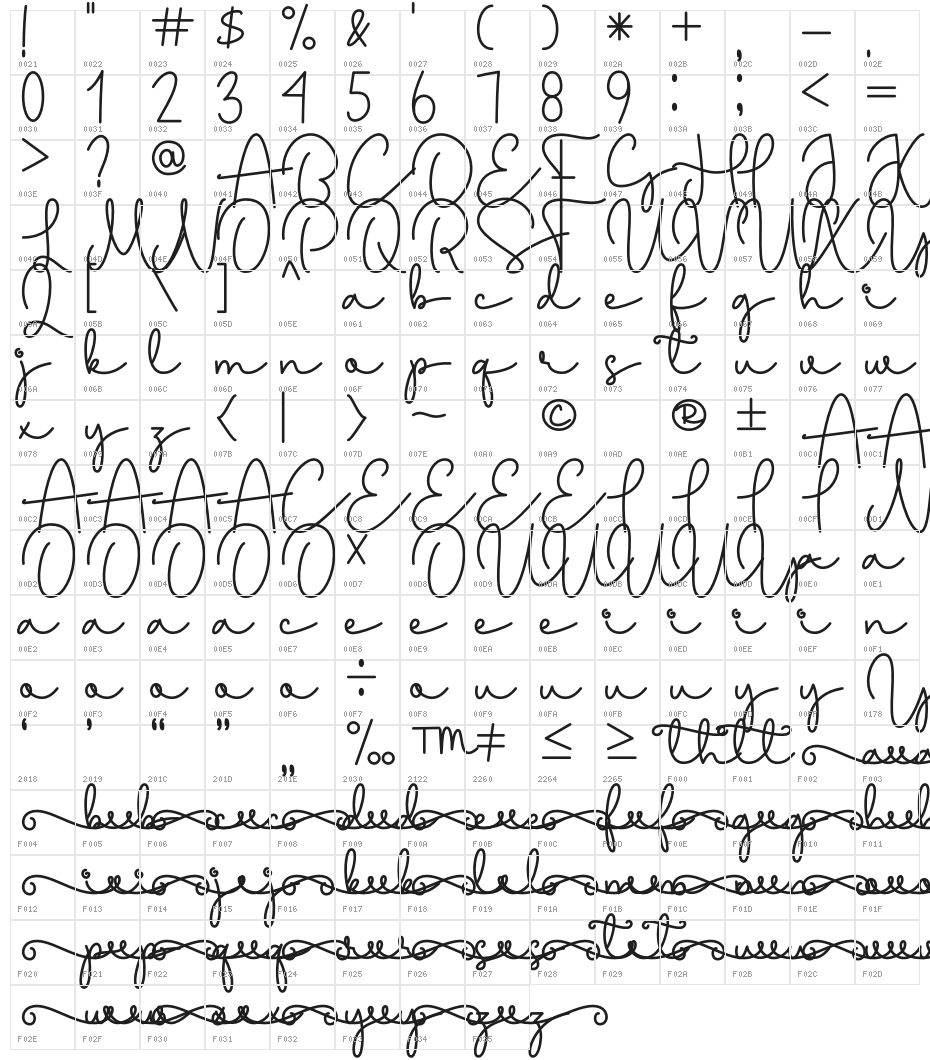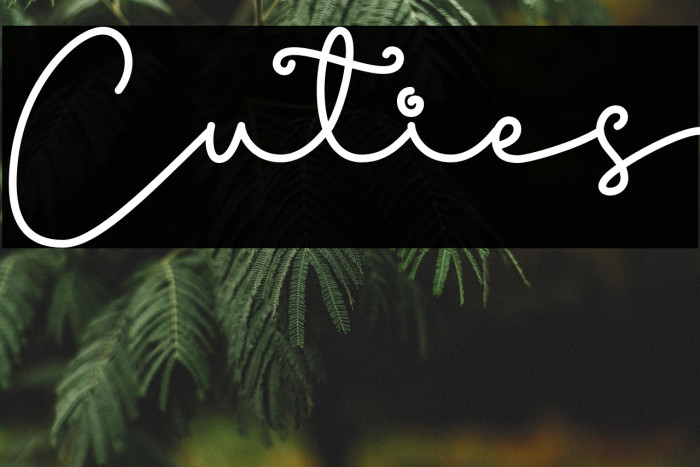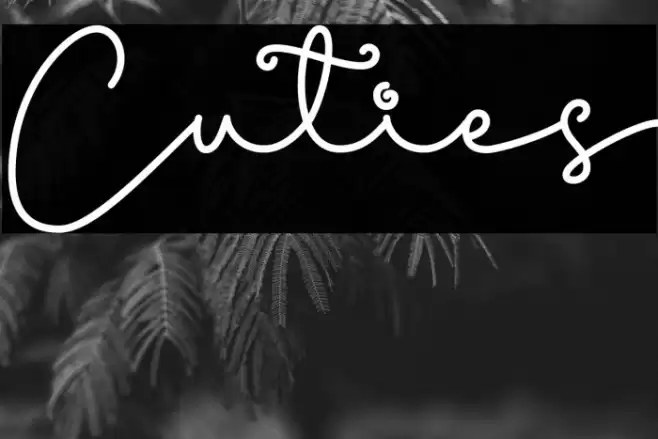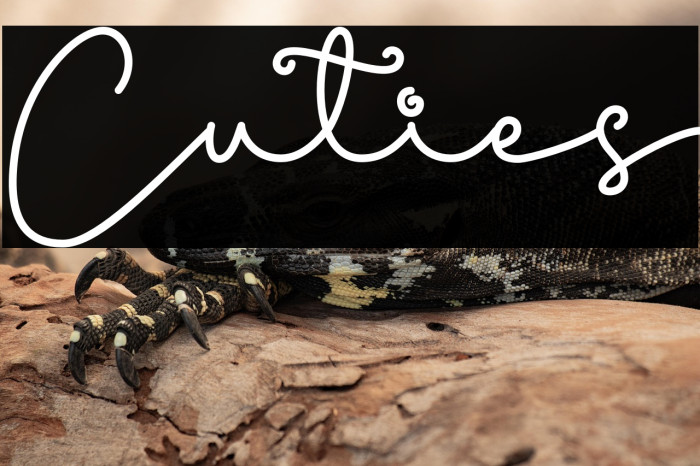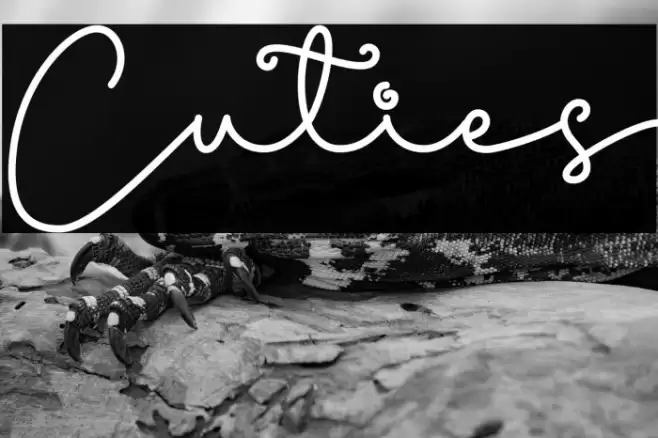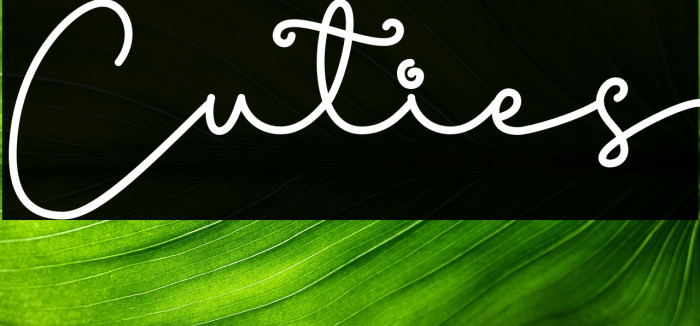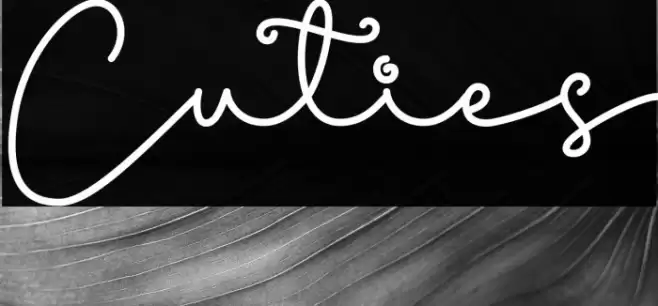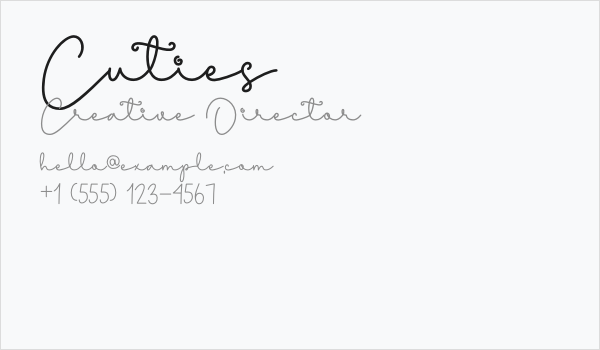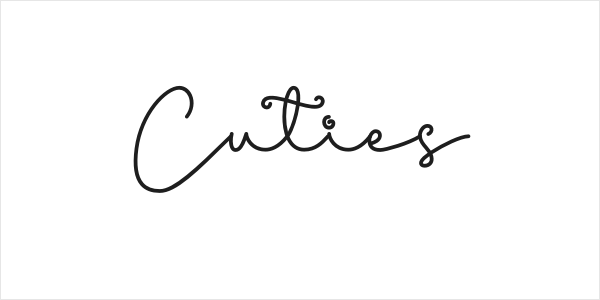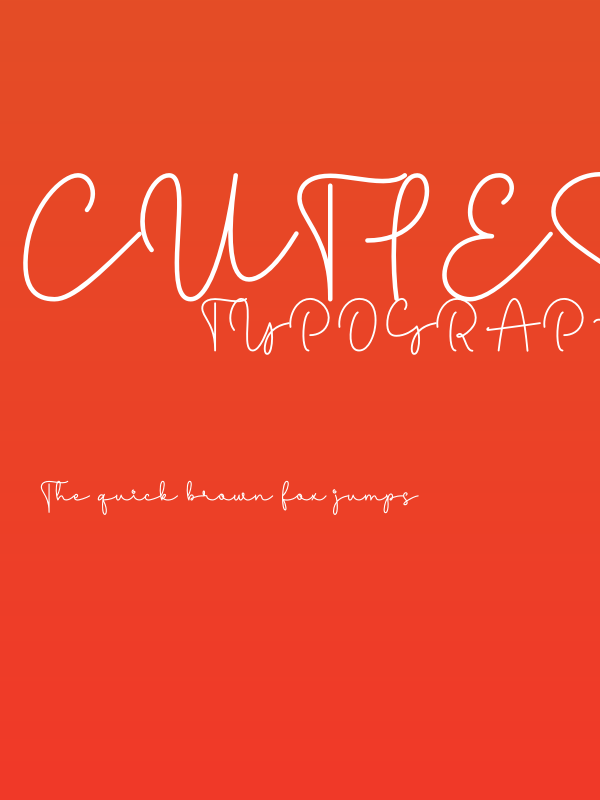
Cuties Font
This playful and whimsical font features a handwritten style with a smooth, flowing script. The uppercase letters are characterized by their rounded shapes and consistent loops, giving them a friendly and approachable appearance. The lowercase letters maintain a similar style, with some letters featuring unique embellishments, such as small loops or curls. The numerals are clear and legible, with a slight playful touch that complements the overall style. Special characters are thoughtfully designed to match the font's aesthetic, ensuring a cohesive look across all text elements.
| Proposed Projects | Ideal for greeting cards, invitations, playful branding, children's books, and creative social media graphics. |